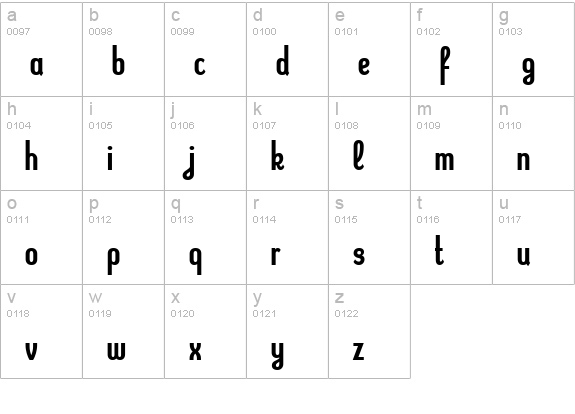
Kleptocracy Condensed Font Details
Kleptocracy Condensed is a distinctive, condensed-width variant in the Kleptocracy typeface family \xE2\x80\x94 well suited to design and typography projects.
Kleptocracy Condensed font exudes elegance and sophistication with its sleek and modern design. This unique typeface strikes the perfect balance between professionalism and creativity, making it ideal for a wide range of design projects. With its condensed form, Kleptocracy Condensed is perfect for creating eye-catching headlines, logos, and branding materials. Not only does Kleptocracy Condensed font offer a stylish and contemporary look, but it also conveys a sense of authority and confidence. Its clean lines and sharp angles give off a sense of precision and clarity, making it a versatile choice for both print and digital designs. The best part? Kleptocracy Condensed font is available for free download at FontsMarket.com. Whether you're a designer looking to add a touch of sophistication to your projects or a business owner in need of a professional font for your branding materials, Kleptocracy Condensed is the perfect choice. Download it now and elevate your designs with this stunning typeface.